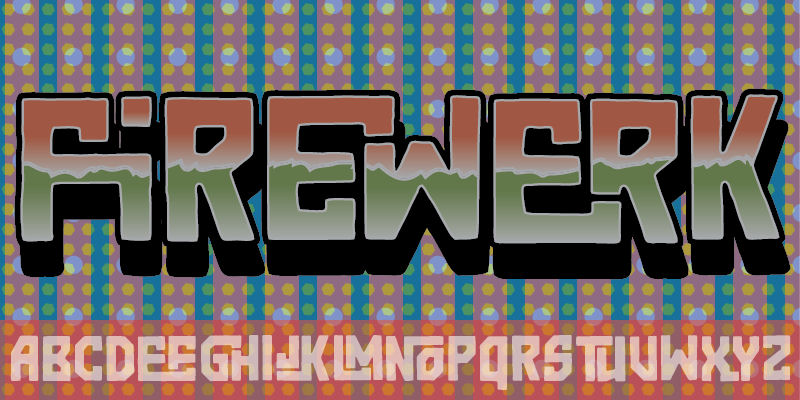
Firewerk Font is perfect for festival posters, celebration banners, party invitations, fireworks displays, New Year's Eve designs, concert flyers, entertainment venues, nightclub promotions, event marketing materials, and holiday greeting cards.
What makes Firewerk Font so exciting is its explosive and dynamic character design that captures the essence of celebration and festivity. The letterforms burst with energy, featuring sharp angles and radiating elements that mimic the spectacular trails of fireworks against the night sky. Each character sparkles with personality, making it an ideal choice for projects that need to convey excitement, celebration, and joy. The font's unique aesthetic brings instant visual impact to any design, creating memorable impressions that stick with viewers long after they've seen your message.
The Firewerk Font family includes multiple weights and styles: Regular, Bold, Light, Condensed, Extended, Italic, and Outline variations. Each style maintains the distinctive firework-inspired characteristics while offering different levels of intensity and visual weight for various design applications.
When searching for the perfect typeface for your celebratory projects, Firewerk Font Free Download stands out as an exceptional choice that combines artistic flair with practical versatility. This remarkable font transforms ordinary text into extraordinary visual experiences that capture attention and create lasting impressions.
The geometric precision of Firewerk Font makes it particularly suitable for digital displays, large-format printing, and high-contrast applications where readability remains crucial. Its distinctive character shapes ensure excellent legibility across different sizes and mediums, from business cards to billboard advertisements. The font's contemporary design language speaks to modern audiences while maintaining timeless appeal that won't become outdated quickly.
Professional designers and creative enthusiasts alike appreciate the font's ability to instantly communicate celebration, achievement, and positive energy. Whether you're designing corporate event materials, wedding invitations, sports championship graphics, or promotional content for entertainment venues, this versatile typeface delivers consistent visual impact that enhances your message's emotional resonance.
The careful attention to spacing, kerning, and character relationships in Firewerk Font ensures smooth text flow and professional appearance in all applications. Its extensive character set supports multiple languages and includes special symbols, making it suitable for international projects and diverse content requirements.